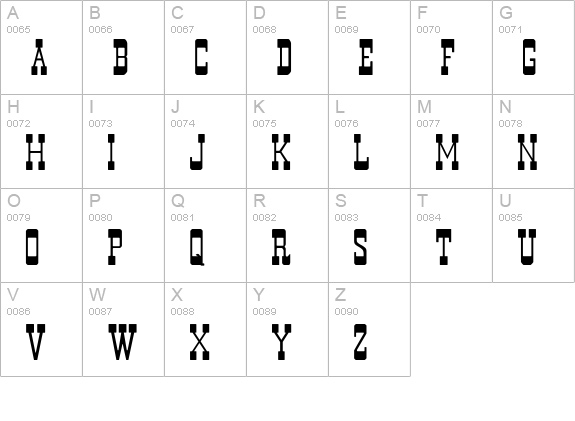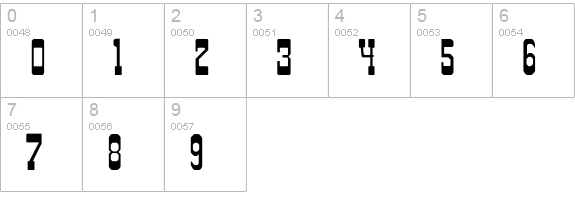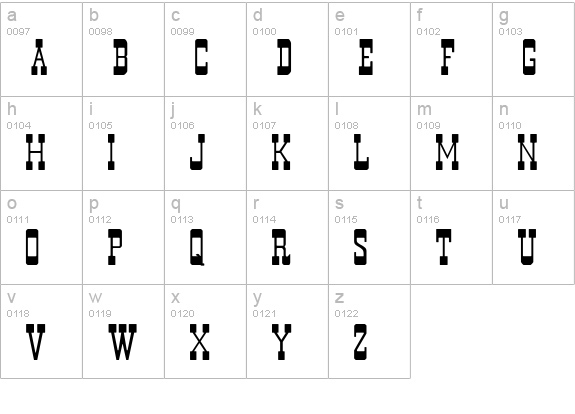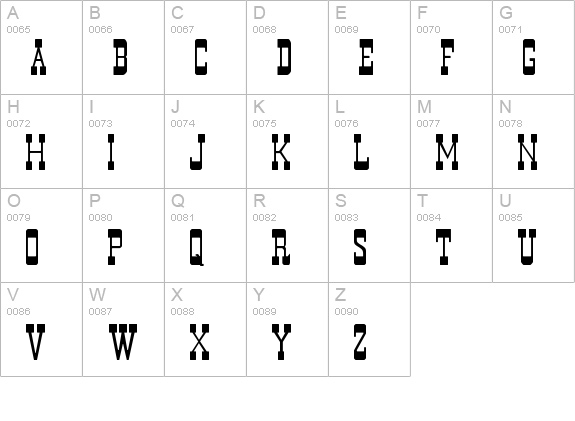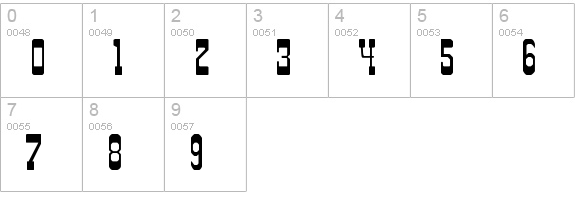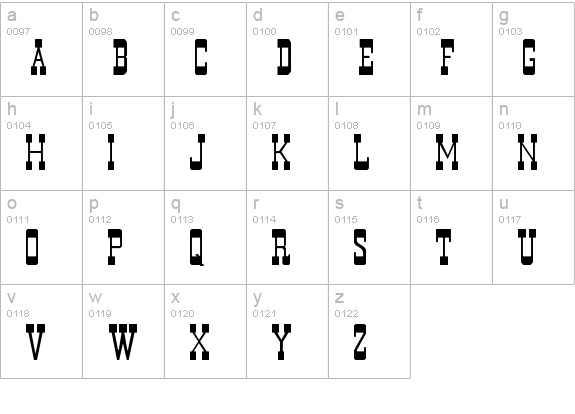
Murdano-Normal Font Details
Murdano-Normal is the standard, neutral variant in the Murdano typeface family \xE2\x80\x94 well suited to general body text, paragraphs, and standard typographic work.
Introducing Murdano-Normal font, a versatile typeface that strikes the perfect balance between modernity and elegance. Its clean lines and balanced proportions make it suitable for a wide range of design projects, from branding to editorial work. The Murdano-Normal font exudes a sense of sophistication and professionalism, making it a great choice for creating sleek and polished designs. What sets Murdano-Normal font apart is its seamless blend of classic and contemporary elements, making it a timeless addition to any designer's toolkit. Whether you're working on a website, poster, logo, or any other design project, this font is sure to make a statement. And the best part? Murdano-Normal font is available for free download at FontsMarket.com. Now you can elevate your designs with this exceptional font without breaking the bank. Don't miss out on the opportunity to add Murdano-Normal font to your collection today!